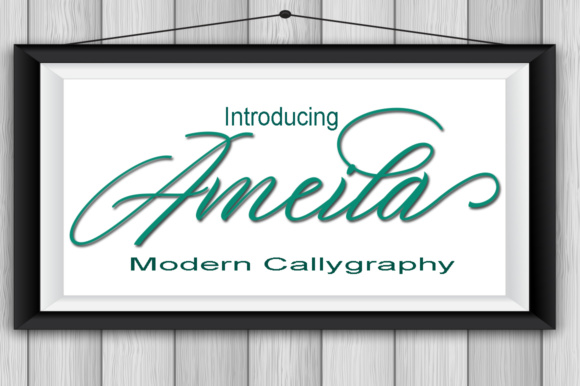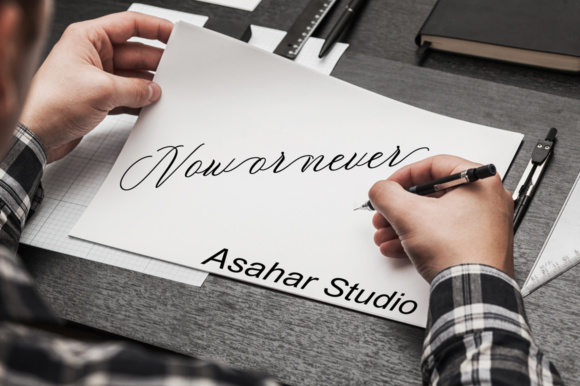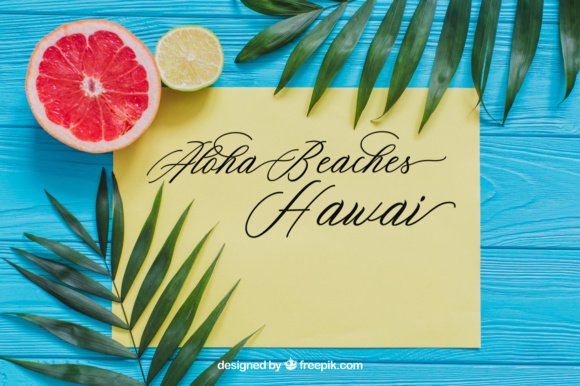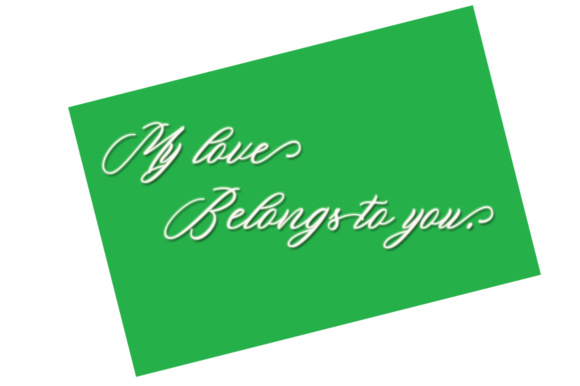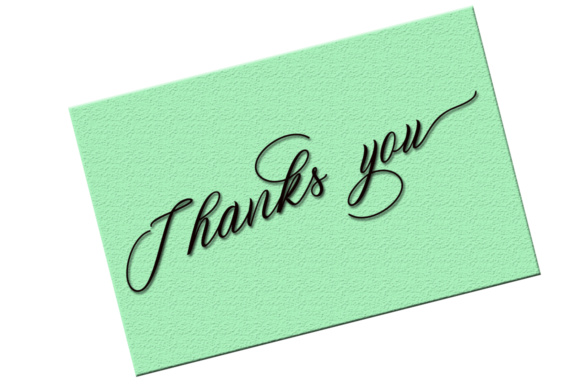
Ameila Font
About Ameila Font
Ameila is a modern calligraphy typeface with a beautiful and unique style. It is great for every design that needs a elegant feel.